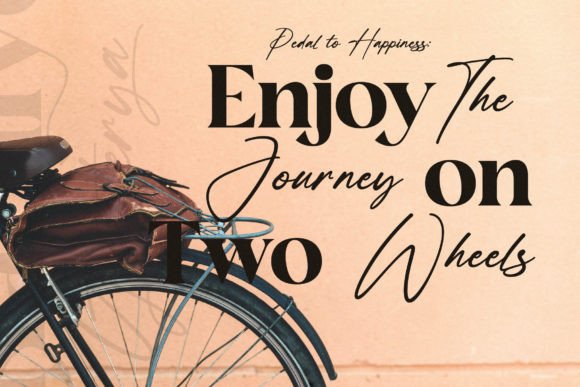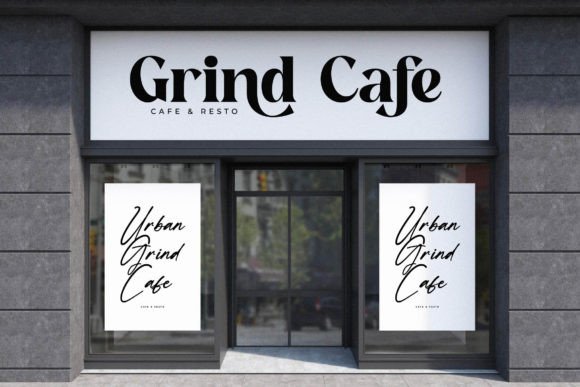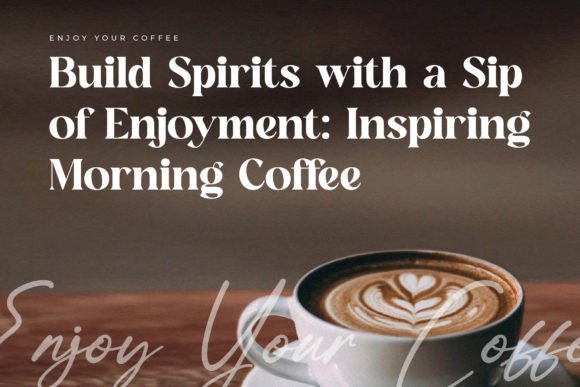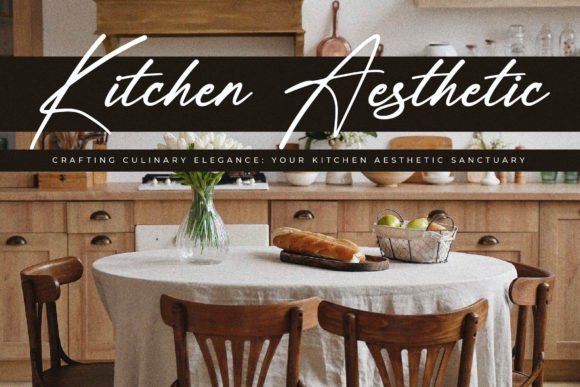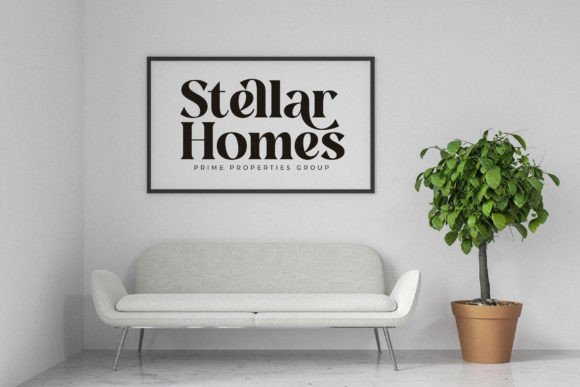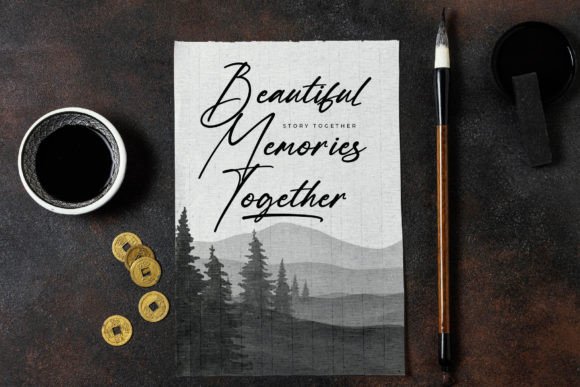
Introducing Hanfiye Guesterya Font Duo: Elevate Your Designs with Elegance and Luxury
We are thrilled to present the Hanfiye Guesterya Font Duo, a sophisticated and modern typeface that combines the classic charm of serif fonts with the elegance of script typography. This versatile font duo is designed to cater to the diverse needs of designers, crafters, and brands seeking to make a statement with their visual identity.
A Unique Style for the Modern Designer
The Hanfiye Guesterya Font Duo boasts a distinctive style that sets it apart from other typefaces. Its serif and script fonts are carefully crafted to exude a sense of luxury, making it an ideal choice for high-end branding, elegant logo designs, and sophisticated editorial projects. Whether you’re working on a fashion brand, magazine, or book title, this font duo provides the perfect blend of classic sophistication and modern flair.
With the Hanfiye Guesterya Font Duo, the creative possibilities are endless. Here are some design ideas to get you started:
- Elegant Logos: Create stunning logos for luxury brands, fashion labels, or high-end services that demand a sophisticated visual identity.
- Book and Movie Titles: Add a touch of elegance to your book or movie titles with a font that commands attention and conveys refinement.
- Fashion Branding: Elevate your fashion brand with a font that embodies style, sophistication, and luxury.
- Magazine and Editorial Design: Use the Hanfiye Guesterya Font Duo to create visually stunning magazine layouts, editorials, and articles that exude elegance and poise.
- Lettering and Quotes: Add a personal touch to your lettering and quote designs with a font that offers a unique and modern aesthetic.
The Hanfiye Guesterya Font Duo is PUA (Private Use Area) encoded, which means you can easily access a wide range of glyphs and ligatures to enhance your designs. This feature allows you to experiment with different typography styles and create unique visual elements that set your work apart.
Why Choose Hanfiye Guesterya Font Duo?
Here are some compelling reasons to choose the Hanfiye Guesterya Font Duo for your next design project:
- Unique Style: Stand out from the crowd with a font that offers a distinctive and modern look.
- Versatility: Use the font duo for a wide range of design projects, from logos and branding to editorial and packaging design.
- Ease of Use: The PUA encoding makes it easy to access and use the font’s advanced features.
- Luxury and Elegance: Convey a sense of sophistication and refinement with a font that embodies luxury and elegance.
In conclusion, the Hanfiye Guesterya Font Duo is a powerful tool for designers and crafters seeking to create visually stunning and elegant designs. Its unique style, versatility, and ease of use make it an ideal choice for a wide range of design projects. With its PUA encoding and extensive features, this font duo is sure to elevate your designs and help you stand out in a crowded creative landscape.